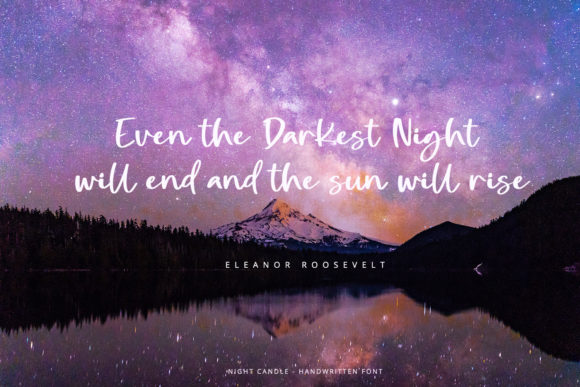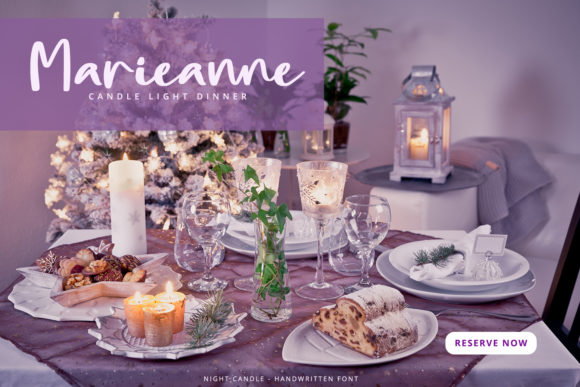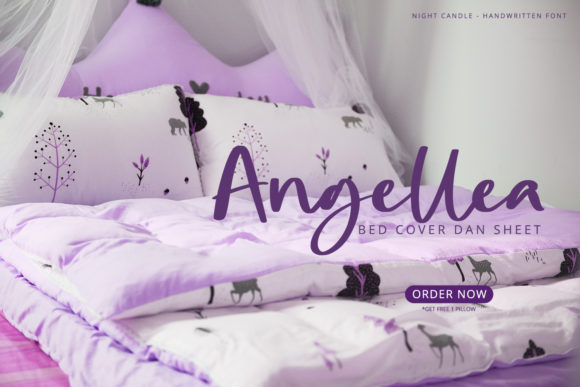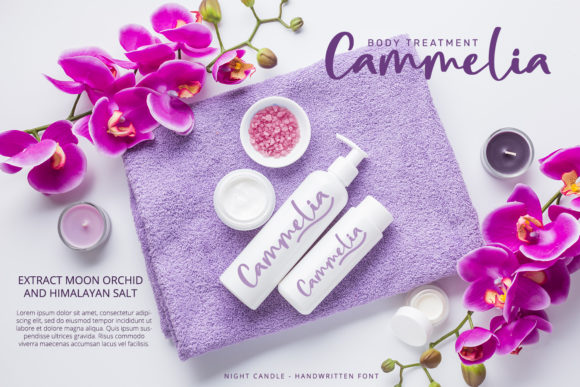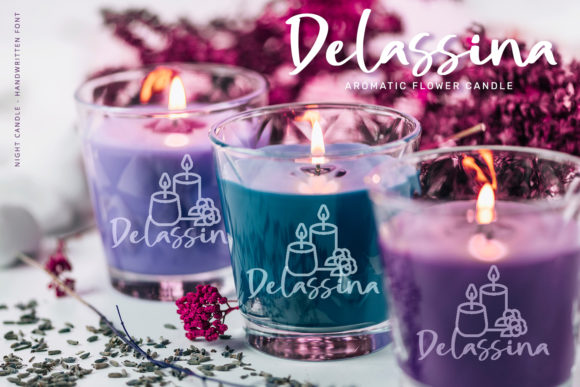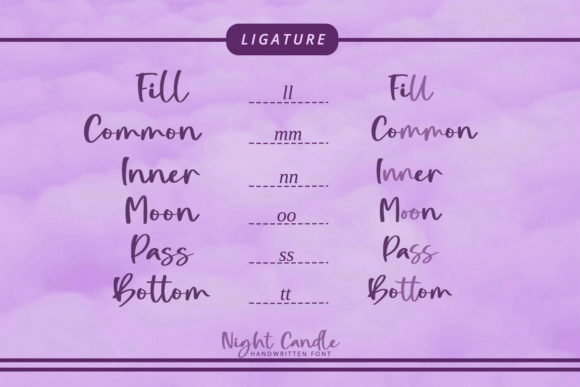
Introduction to Night Candle Font
Have you ever been working on a creative project late at night, pouring your heart and soul into it, and suddenly the right font comes along and elevates the entire design? That’s exactly what happened to many designers when they discovered the Night Candle Font. This simple yet elegant handwritten font has been a game-changer for many, and for good reason.
Whether you’re working on a personal project or a professional design, the Night Candle Font is a valuable resource that can take your creations to the next level. Its relaxed and casual vibe makes it perfect for a wide range of topics, from blog posts to social media graphics. And the best part? It’s available for a free download, complete with a transparent background, making it easy to integrate into any design.
As a design resource, the Night Candle Font is a high-quality addition to any font library. Its versatility and unique charm make it an asset that designers will return to again and again, and its free download makes it accessible to creatives of all levels.
Key Features of Night Candle Font
- Unique and elegant design for creative projects, offering a sophisticated aesthetic.
- High-quality font with crisp and clear typography, suitable for a wide range of applications.
- Perfect for designers and artists working on projects that require a touch of sophistication and elegance, such as invitations, greeting cards, and digital art.
Honest Review: Night Candle Font
As a designer, I’m always on the lookout for unique and high-quality design resources. The Night Candle Font is one of the latest additions to my collection, and I’m excited to share my honest review with you.
What works well: ✨ The Night Candle Font is perfect for creative projects that require a touch of elegance and sophistication. The font’s sleek and modern design makes it ideal for use in high-end branding, luxury product packaging, and even digital design projects. The transparent background is a bonus, allowing for easy layering and manipulation in design software.
Here are some of the key features that I love about the Night Candle Font:
- Perfect for use in branding, packaging, and digital design
Limitations: ⚠️ While the Night Candle Font is an excellent addition to any design library, it may not be suitable for all types of projects. The font’s modern design may not be the best fit for more rustic or vintage-themed projects.
Overall impression: I’m thoroughly impressed with the Night Candle Font. Its high-quality design and versatility make it an excellent addition to any design library. Whether you’re working on a creative project or just looking for a new design resource, the Night Candle Font is definitely worth checking out.
For best results, use the Night Candle Font on a dark background to showcase its unique glow effect. Experiment with different font sizes and colors to create a visually appealing design. You can also pair the Night Candle Font with other design resources, such as graphics and images, to create a cohesive and engaging design.
The Night Candle Font is perfect for use in a variety of creative projects, including invitations, posters, social media graphics, logo design, typography, presentations, and documents. Its high-quality design and transparent background make it a valuable design resource for anyone looking to add a unique touch to their work.